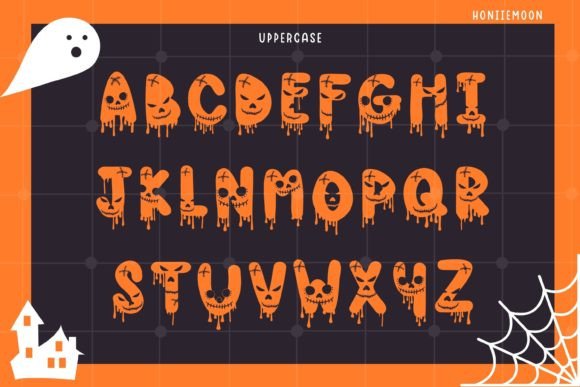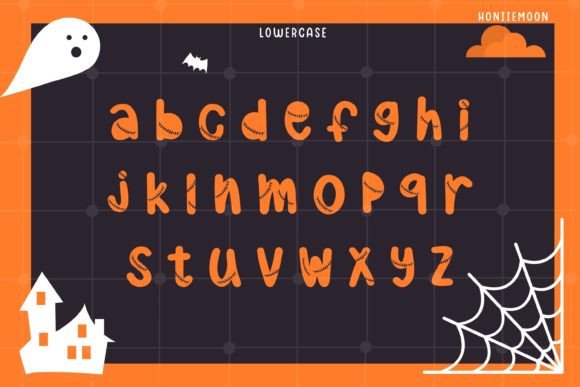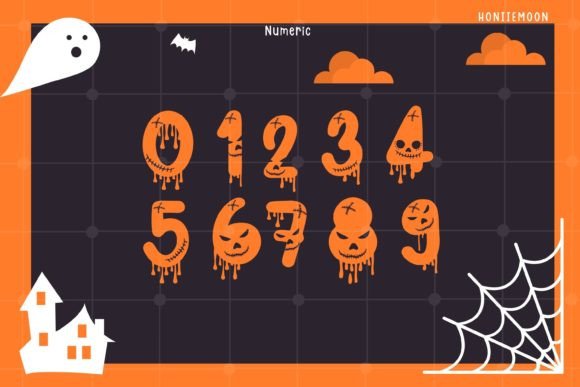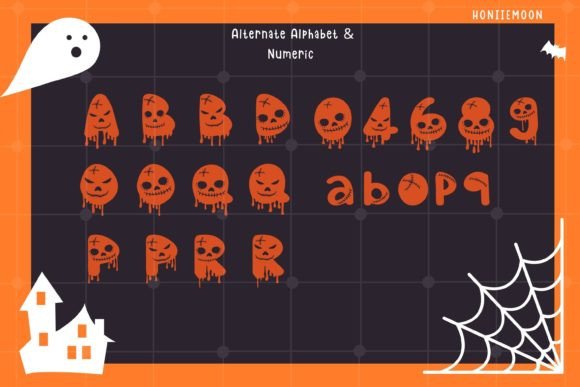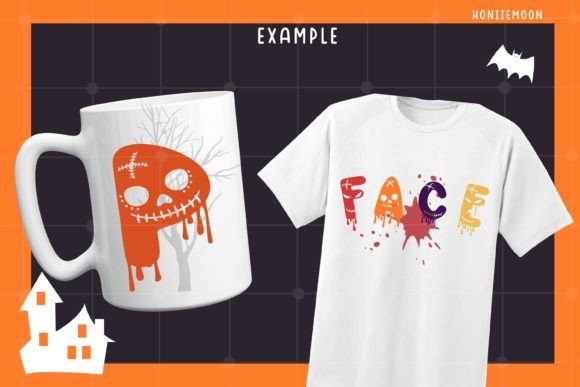
Introduction to Halloween Face Font
As designers, we’ve all been there – staring at a blank canvas, waiting for inspiration to strike. The creative process can be both exhilarating and daunting, but sometimes all it takes is one special element to bring our ideas to life. For me, that element was the Halloween Face Font, a delightful and spooky font that instantly adds a touch of magic to any design project.
This versatile font is a game-changer for designers looking to add a unique twist to their creative projects. With its high-quality, transparent background, the Halloween Face Font is perfect for adding a pop of personality to designs, from social media graphics to print materials. And the best part? It’s available for free download, making it an invaluable resource for designers of all levels.
- High-quality, spooky design resource ideal for creative projects, especially around Halloween.
- Features a unique, hand-drawn design that adds a touch of personality to any creative project.
- Perfect for use in graphic design, digital art, and other creative pursuits where a spooky or Halloween-themed design is desired.
Honest Review: Halloween Face Font
I recently stumbled upon the Halloween Face Font, a design resource that caught my eye. The font is perfect for adding a spooky touch to any creative project.
- High quality and detailed characters, making it ideal for close-up designs ✨
- Transparent background, making it easy to layer with other design elements ✨
- Limited character set, which may not be suitable for longer texts ⚠️
- May not be suitable for corporate or professional designs due to its spooky theme ⚠️
Overall, I’m impressed with the Halloween Face Font. It’s a great resource for designers looking to add a touch of Halloween magic to their projects. While it has some limitations, it’s a high-quality font that’s definitely worth checking out.
Halloween Face Font
The Halloween Face Font is a unique and spooky design resource perfect for adding a touch of Halloween spirit to your creative project. This free download features a set of high-quality, customizable characters with transparent backgrounds, making it easy to incorporate into your design.
Tips for Getting the Most Out of Halloween Face Font
To get the most out of the Halloween Face Font, experiment with different combinations of text and background colors, and use the font in conjunction with other design elements to create a spooky atmosphere. You can also use the font to create a sense of depth and dimension by layering multiple instances of the font.
The Halloween Face Font is perfect for a variety of creative projects, including spooky invitations, social media graphics, Halloween-themed logos, and presentations. You can also use the font to create spooky decorations, such as banners and signs, or even a haunted house theme for a party.